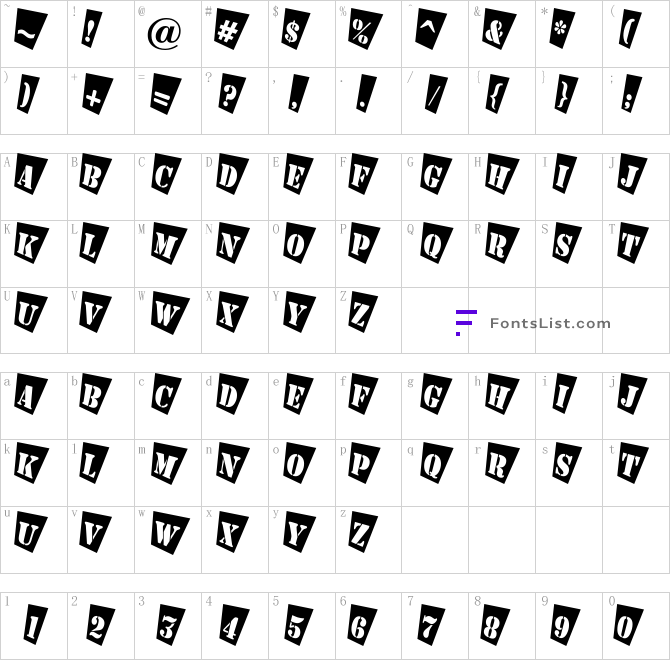
- Font Name:a_StamperCmTw
- Full Name:a_StamperCmTw
a_StamperCmTw.ttf is a very beautiful artistic font, a_StamperCmTw.ttf is widely used in the design and printing of various books and pictures,a_StamperCmTw.ttf has a strong visual impact,a_StamperCmTw.ttf is a commonly used font in newspapers, magazines and books, and is used in posters, e-commerce Poster design, store design, logo design, font design and other fields.a_StamperCmTw.